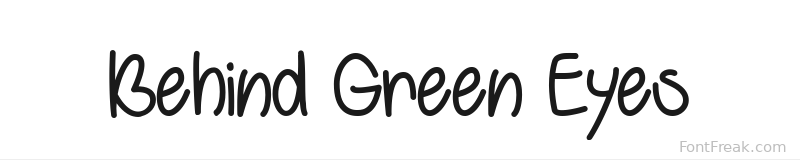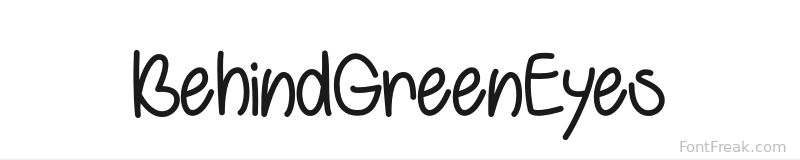
BehindGreenEyes
Behind Green Eyes
About BehindGreenEyes
BehindGreenEyes is a charming handwritten font designed by Misti Hammers, embodying a playful yet elegant aesthetic that appeals to a wide range of creative projects. This font falls into the script category, making it ideal for applications where a personal touch is desired. Its fluid letterforms and whimsical curves create a warm and inviting appearance, perfect for adding character to any design.
Visually, the BehindGreenEyes font showcases a medium stroke weight with a consistent contrast that enhances readability while maintaining its artistic flair. The spacing between characters is thoughtfully crafted, allowing for a smooth flow that complements its handwritten style. This font features subtle decorative elements, such as gentle loops and swirls, which elevate its charm without overwhelming the overall design.
The versatility of BehindGreenEyes makes it suitable for various use cases. It shines in wedding invitations, where its romantic flair can set the tone for special occasions. Additionally, it works beautifully on restaurant menus, providing a friendly and approachable vibe that invites customers to explore the offerings. Graphic designers may find it ideal for creating eye-catching posters or social media graphics that require a touch of personality. Content creators can also utilize this font for branding projects, ensuring their message resonates with a human touch.
Targeting graphic designers, small business owners, and content creators alike, BehindGreenEyes font free download offers an accessible way to infuse creativity into any project. What sets this font apart is its unique balance of playfulness and elegance, making it a standout choice for anyone looking to add a distinctive flair to their designs. Whether you’re crafting a heartfelt message or promoting a brand, BehindGreenEyes brings an inviting and personal touch that is sure to leave a lasting impression.